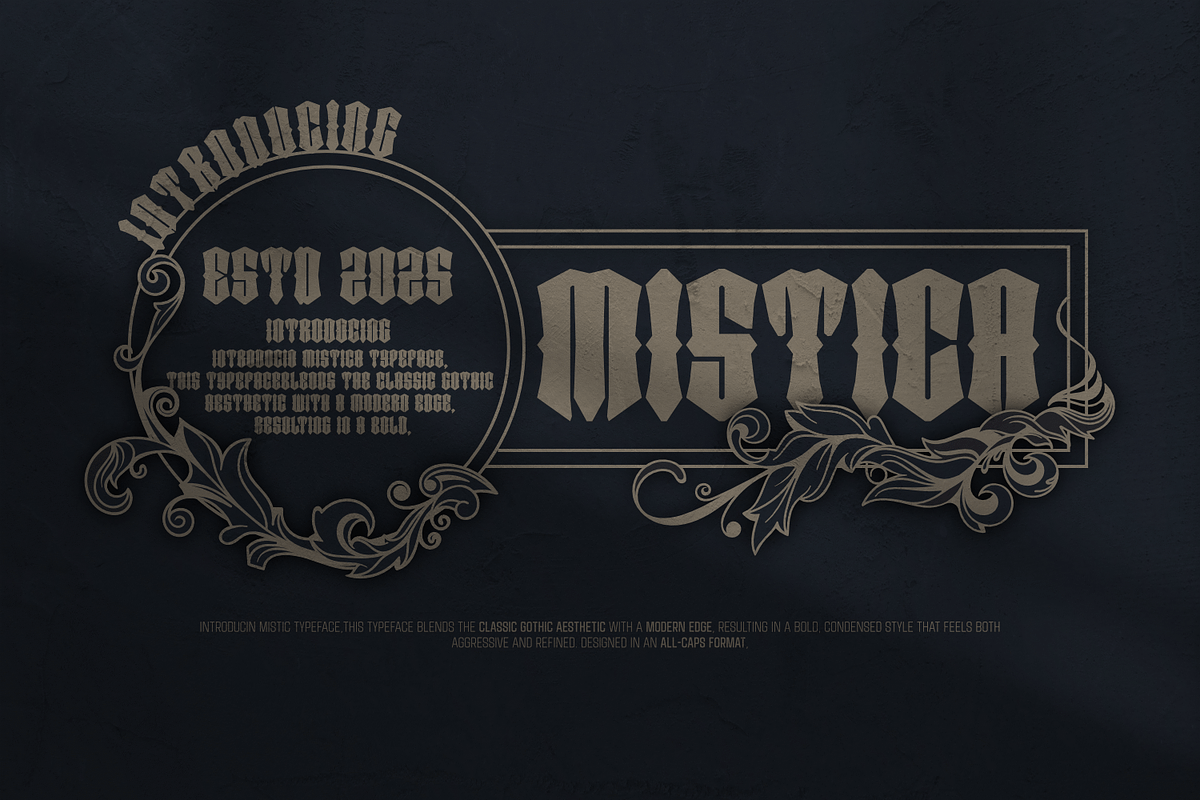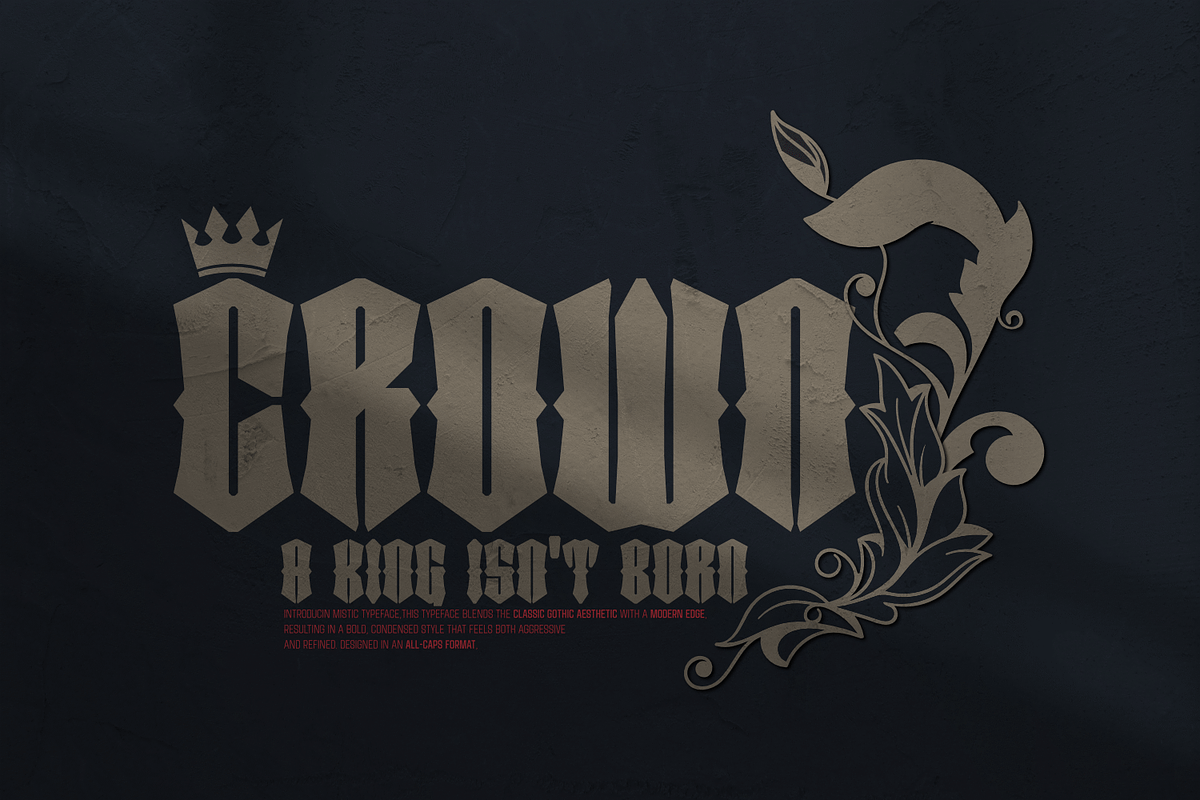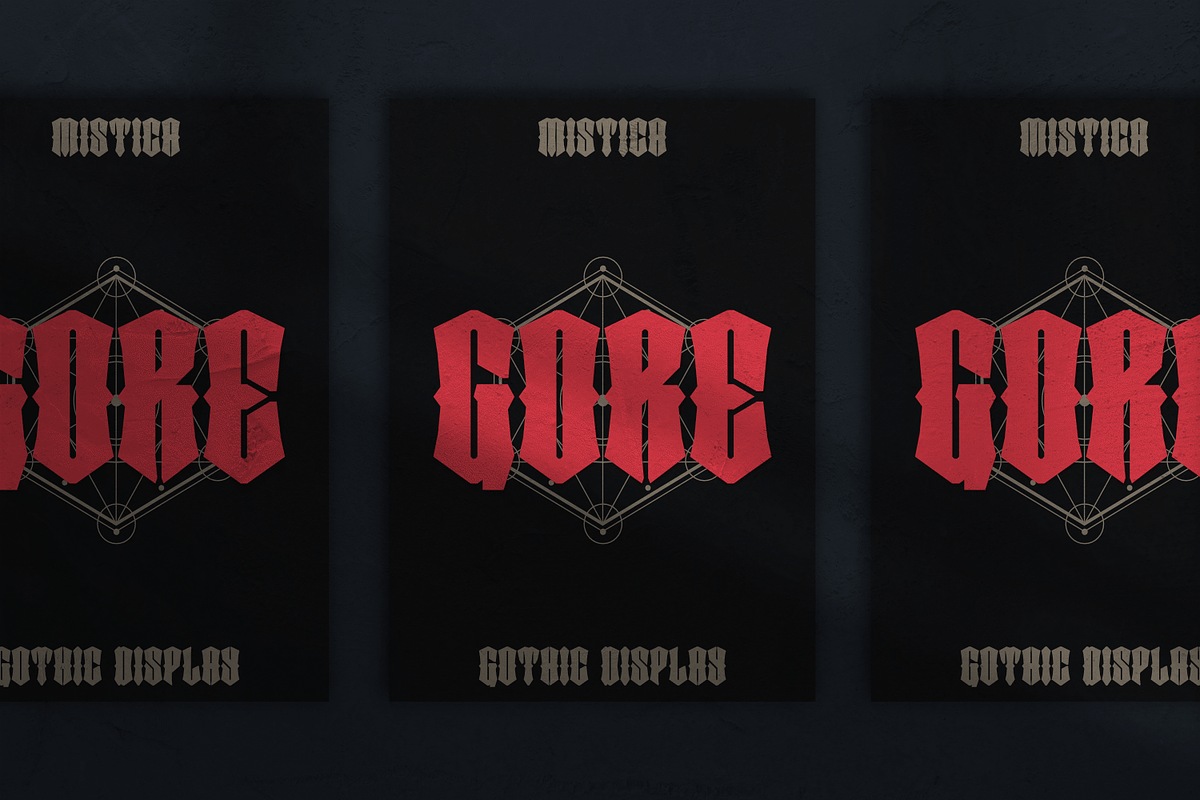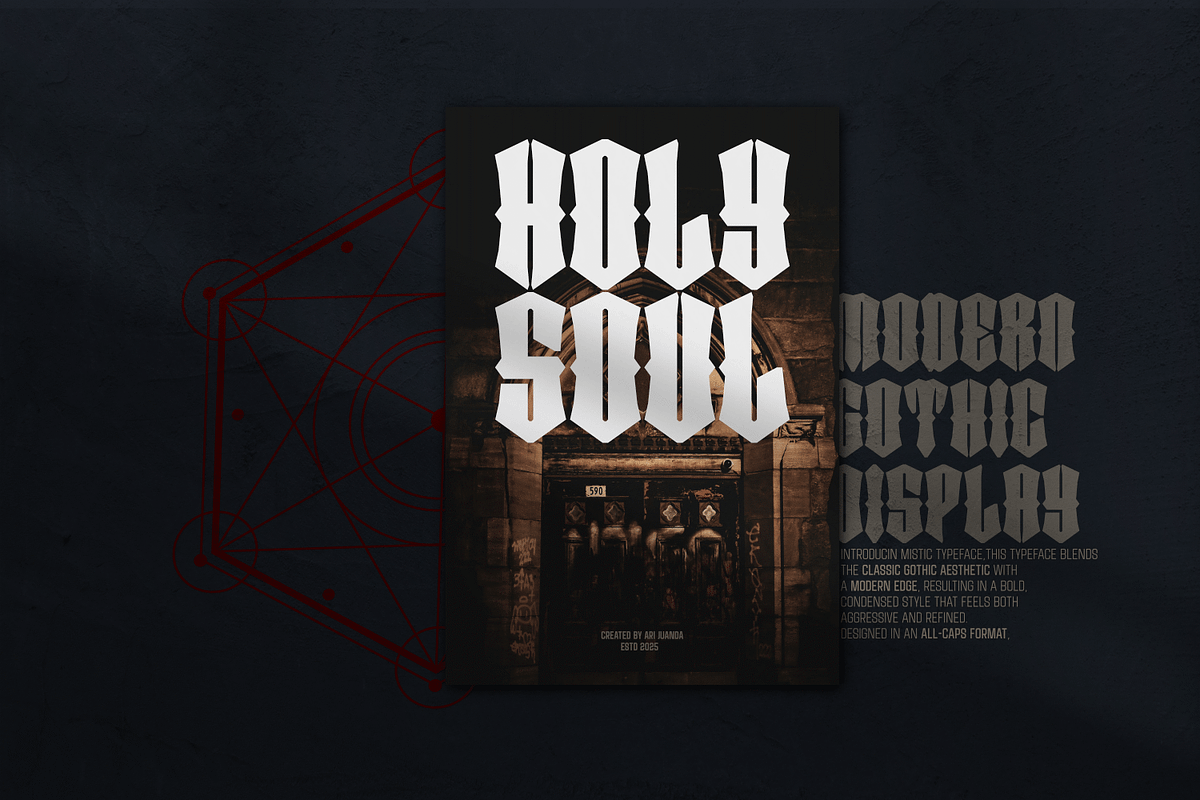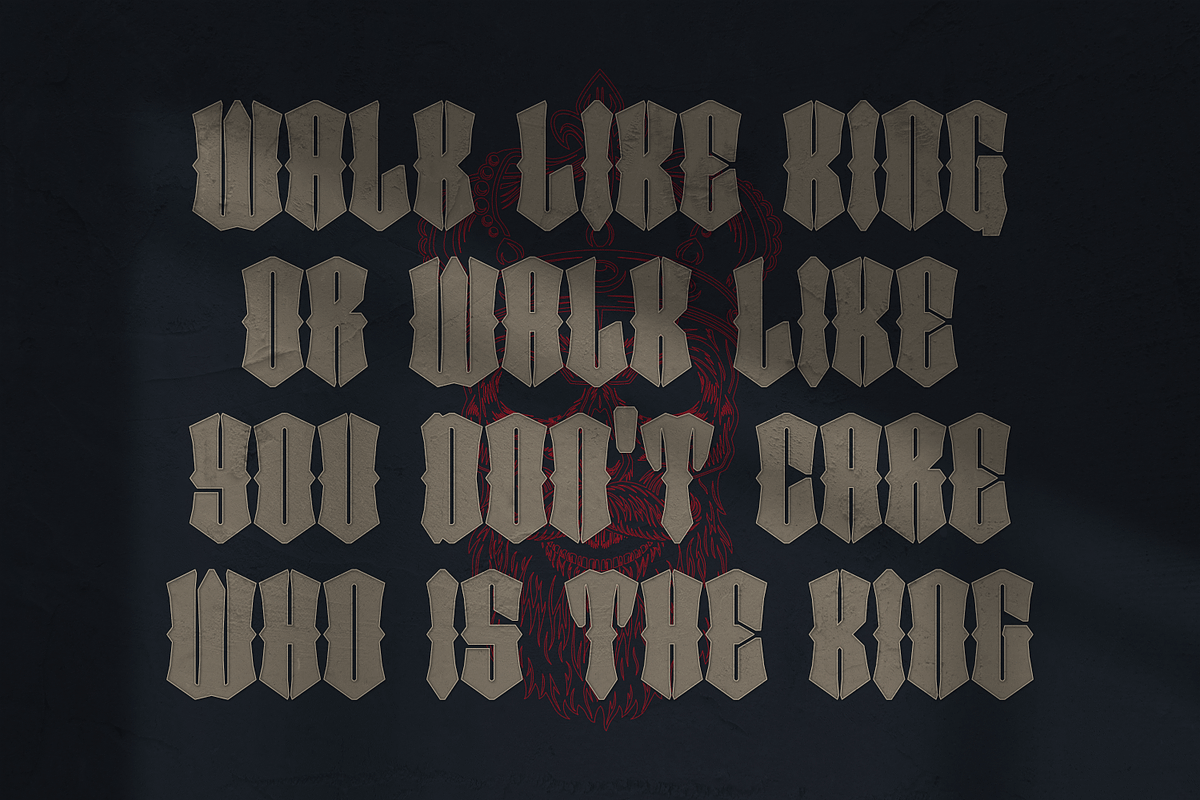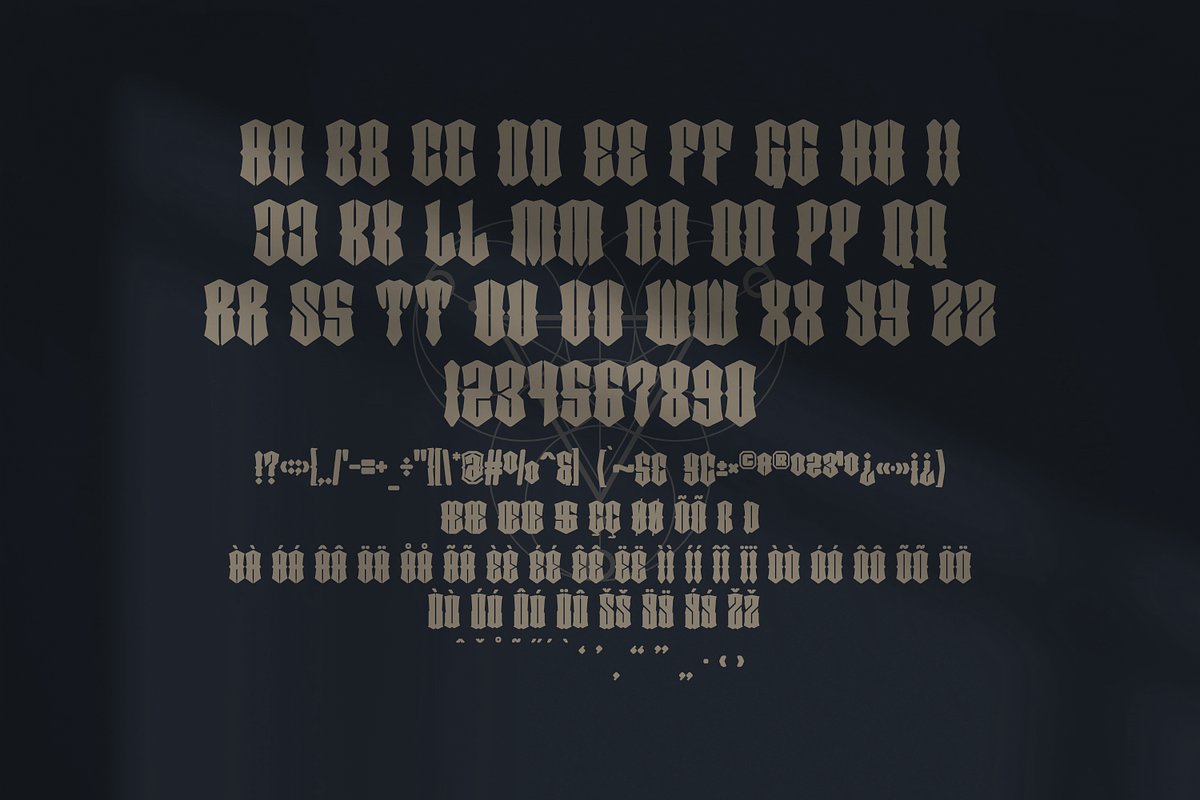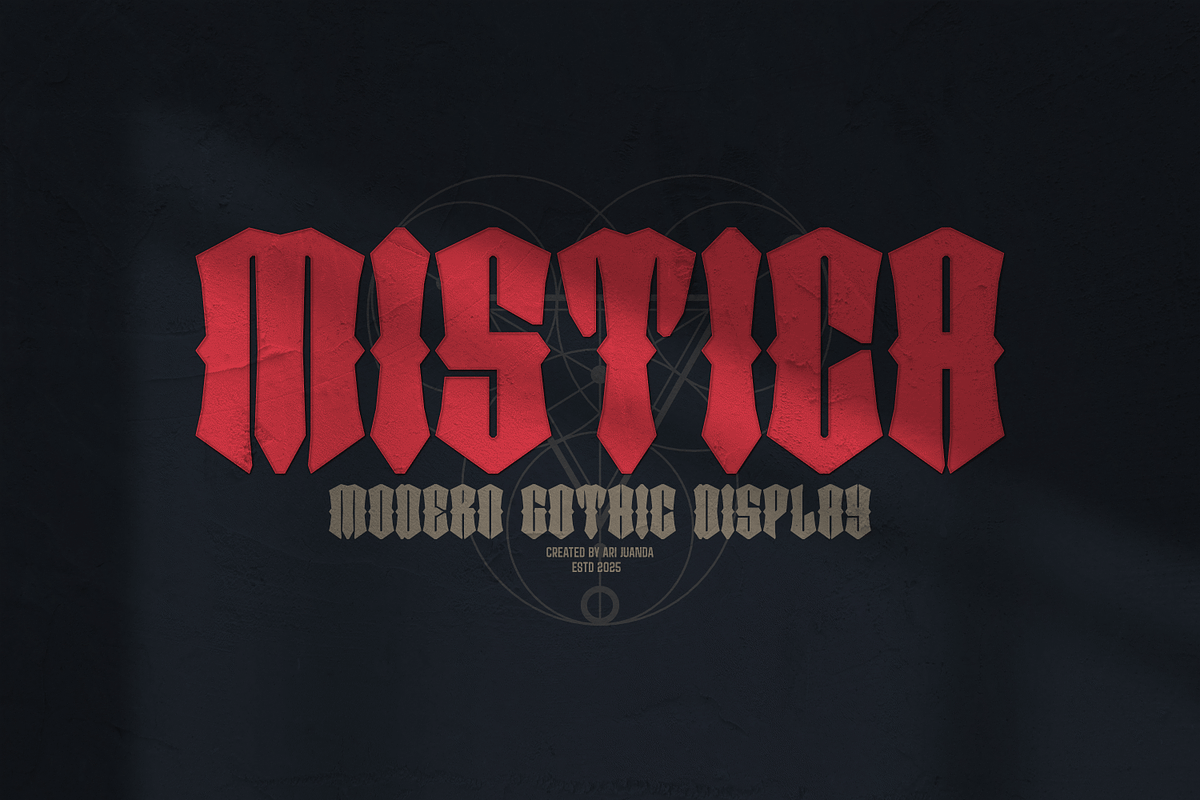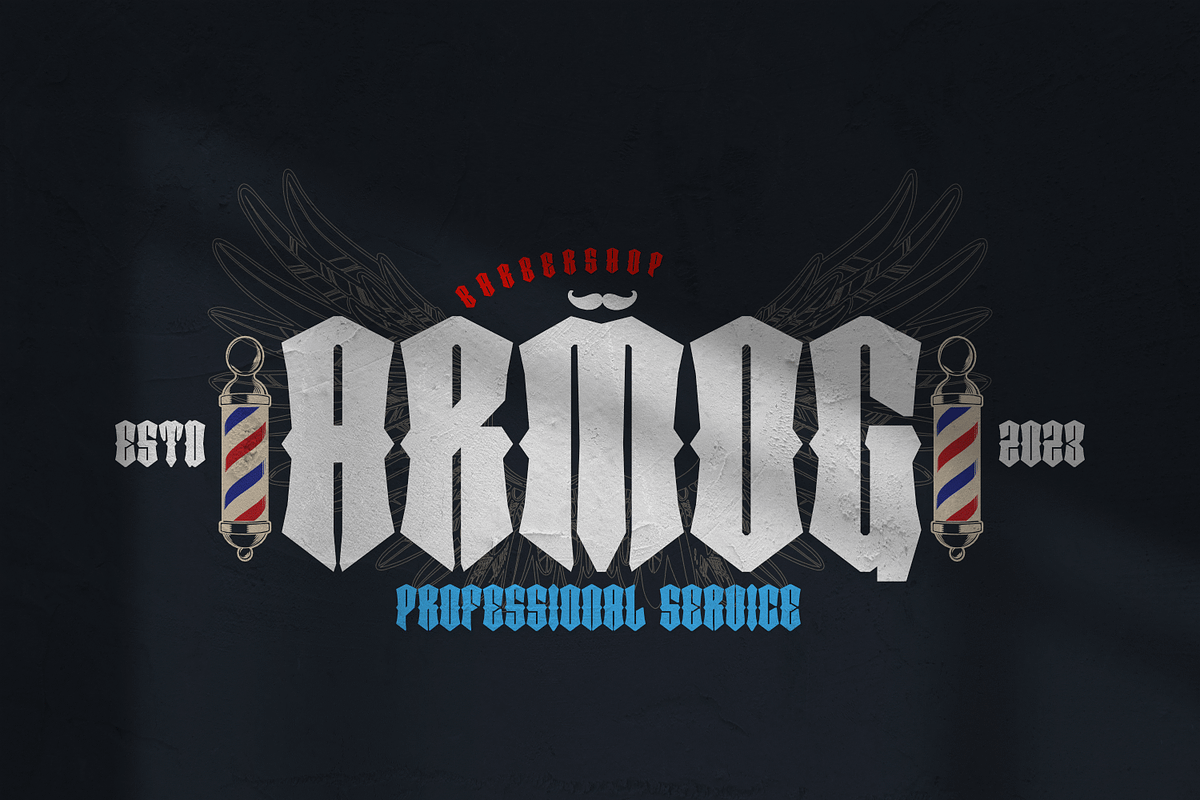
Mistica
Introducin Mistic typeface,this typeface blends the classic gothic aesthetic with a modern edge, resulting in a bold, condensed style that feels both aggressive and refined,designed in an all-caps format. With sharp angles and blackletter-inspired forms, this font captures the essence of gothic and metal culture without sacrificing legibility. Its bold and condensed proportions make it ideal for impactful headlines, logos, album covers, and other graphic elements within the metal music, dark art, or underground subculture scenes. This typeface is a perfect fusion of tradition and modernism, built to deliver intensity, character, and unmistakable